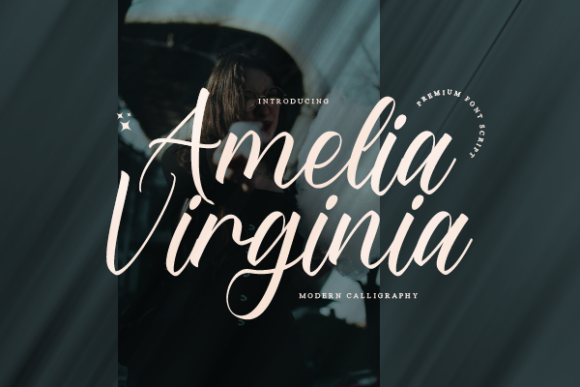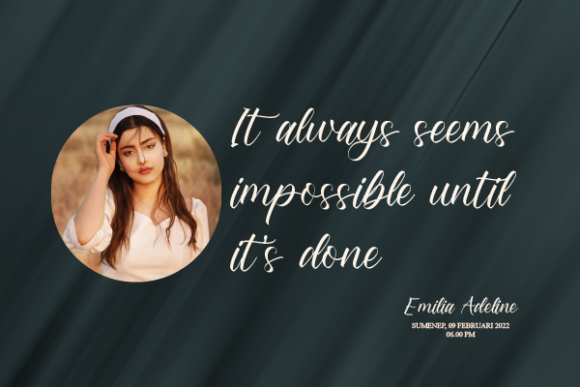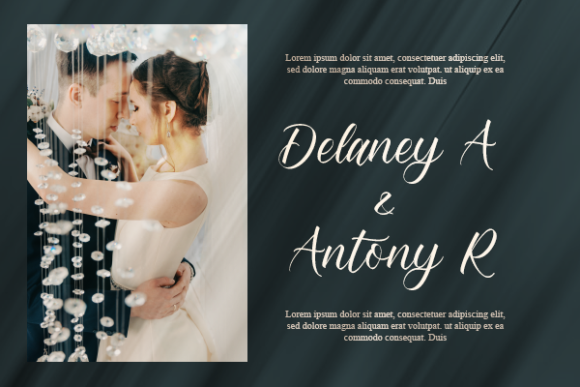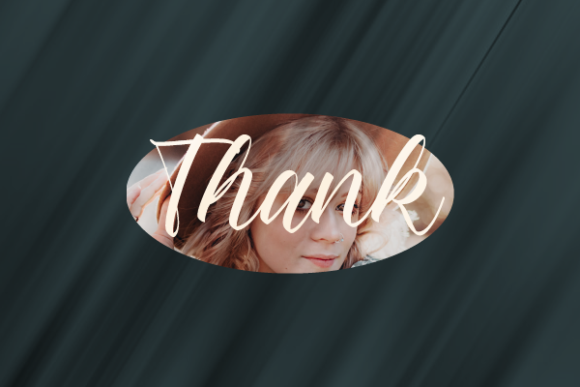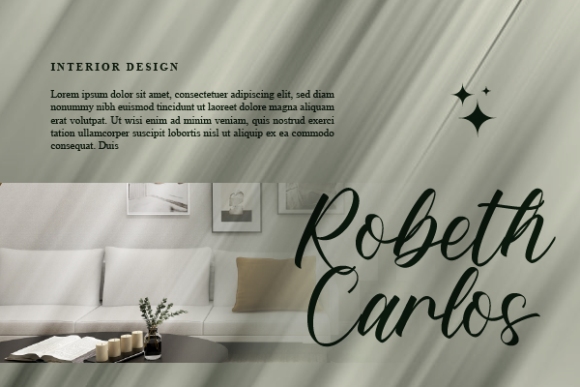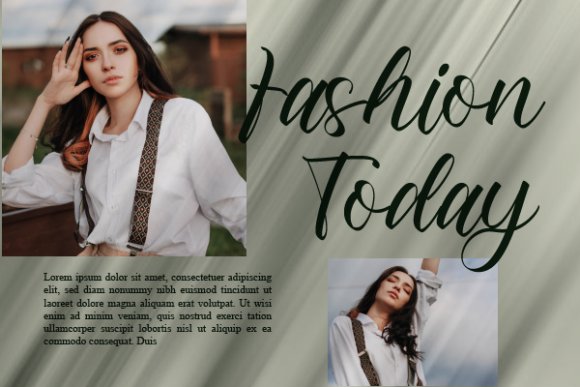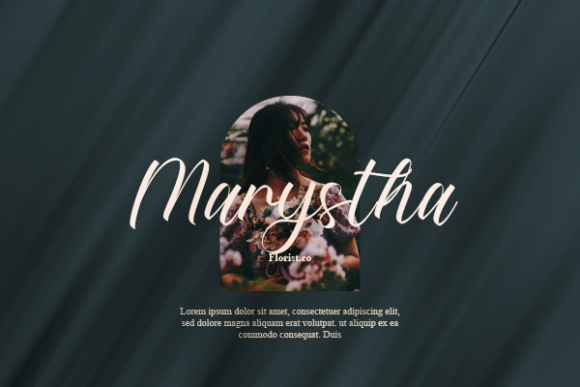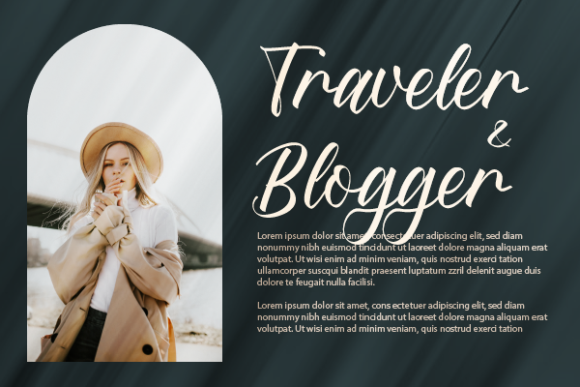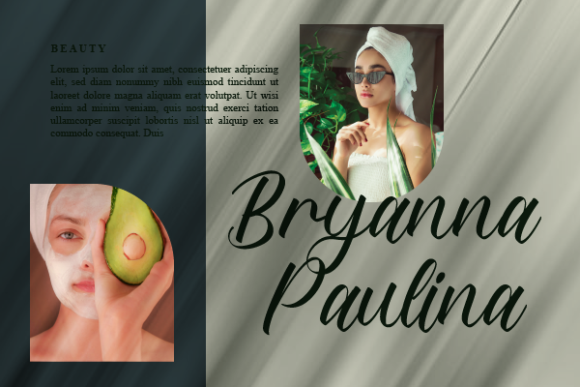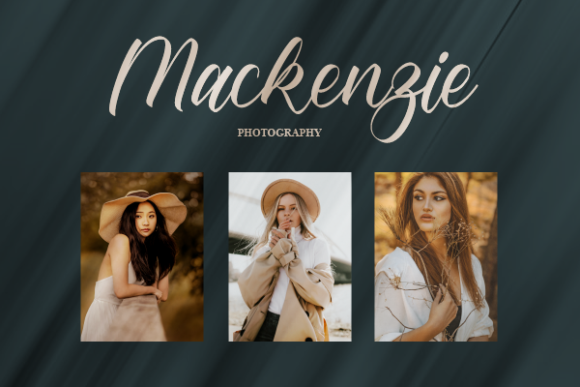
Amelia Virginia Font
About Amelia Virginia Font
“Amelia Virginia” emerges as a stylish and dainty script font that adds a touch of sophistication to your design projects. Its versatile nature makes it suitable for a wide array of endeavors, including logos, branding projects, labels, photography enhancements, watermarks, special events, and any other creative projects that require a beautiful script style.
The allure of “Amelia Virginia” lies in its ability to convey style and delicacy through its meticulously crafted design. Its graceful strokes and intricate details contribute to an aesthetic that resonates with elegance and visual allure. This font’s adaptability ensures that it can seamlessly integrate into various design contexts.
Whether you’re aiming to elevate the allure of your branding materials or add an elegant touch to your special event designs, “Amelia Virginia” becomes a valuable tool. Its unique design can elevate the visual impact of your projects, making them stand out with a touch of refined charm.
Incorporating “Amelia Virginia” into your design endeavors means embracing its stylish and dainty attributes. By harnessing its unique charm, you’re enhancing the visual allure of your work and ensuring that your designs resonate effectively with your intended audience. This font becomes a versatile resource for infusing your creations with sophistication and a tasteful script style, allowing them to shine with beauty and elegance.